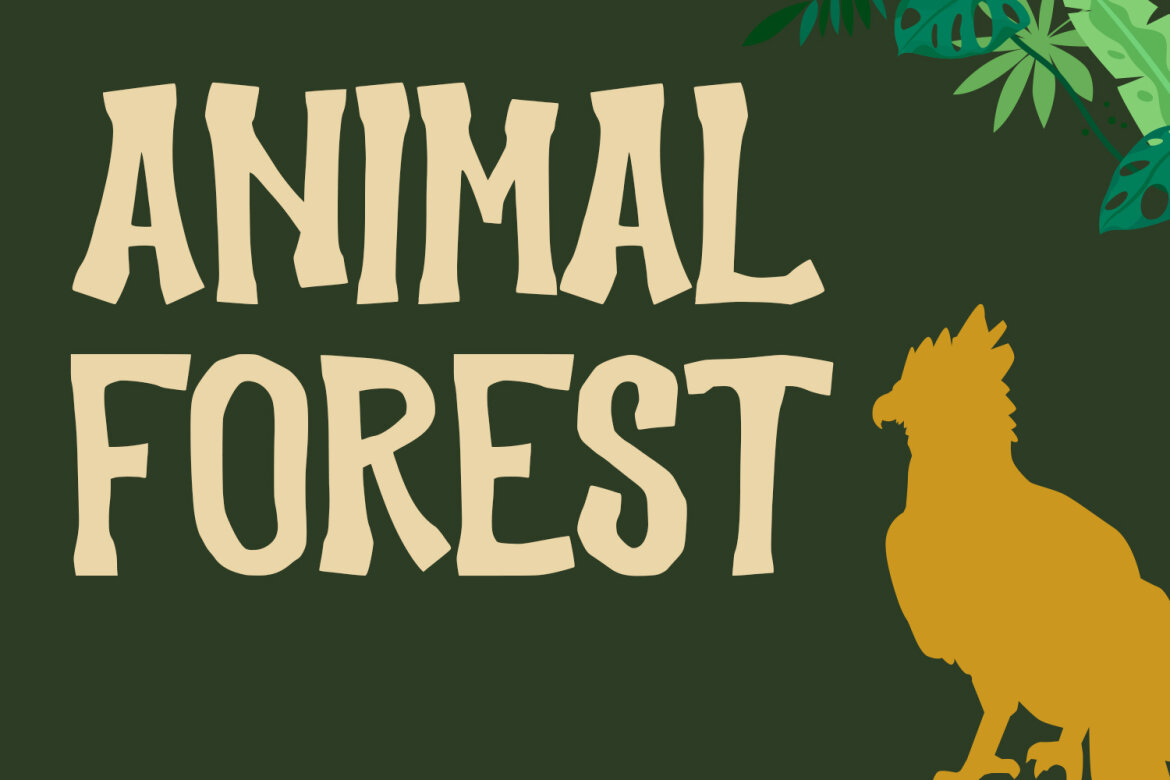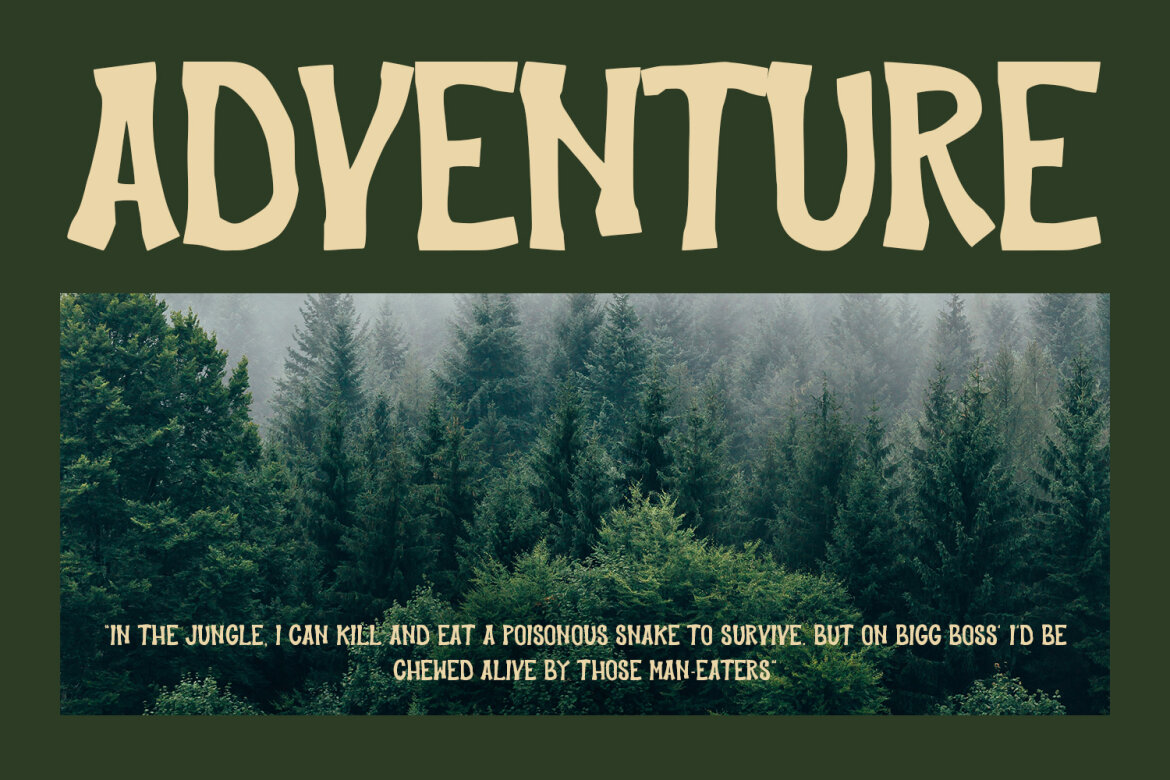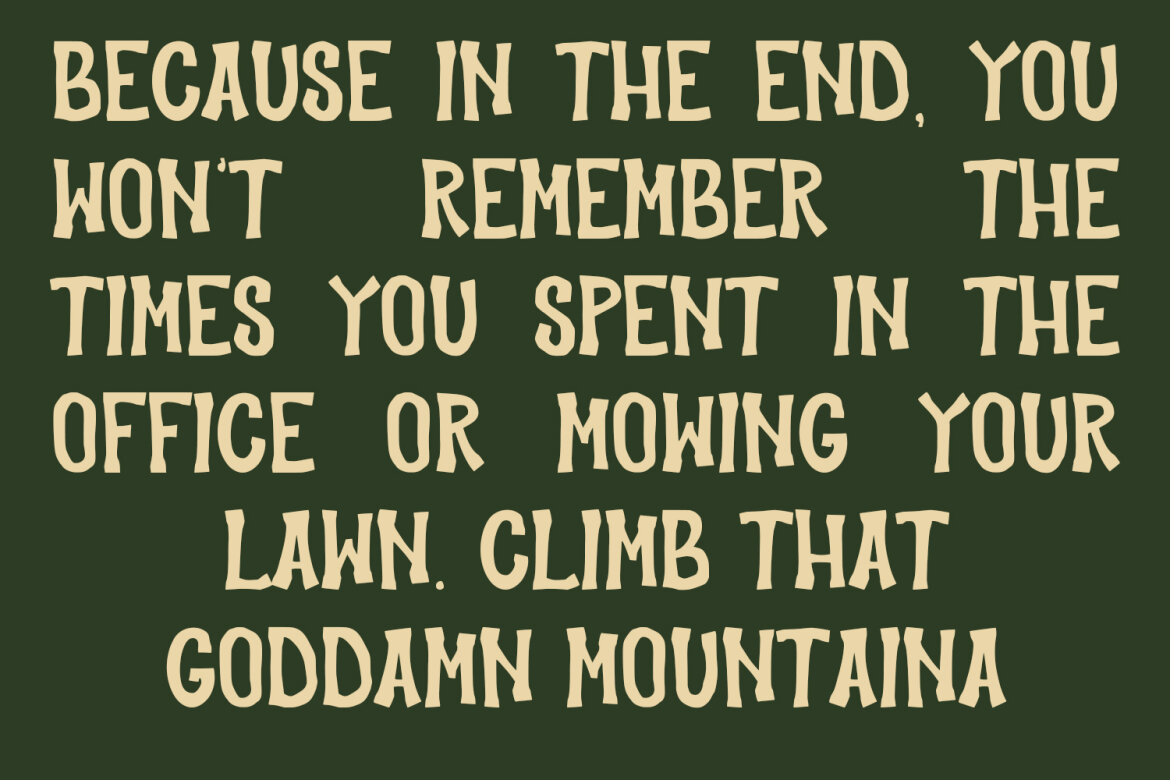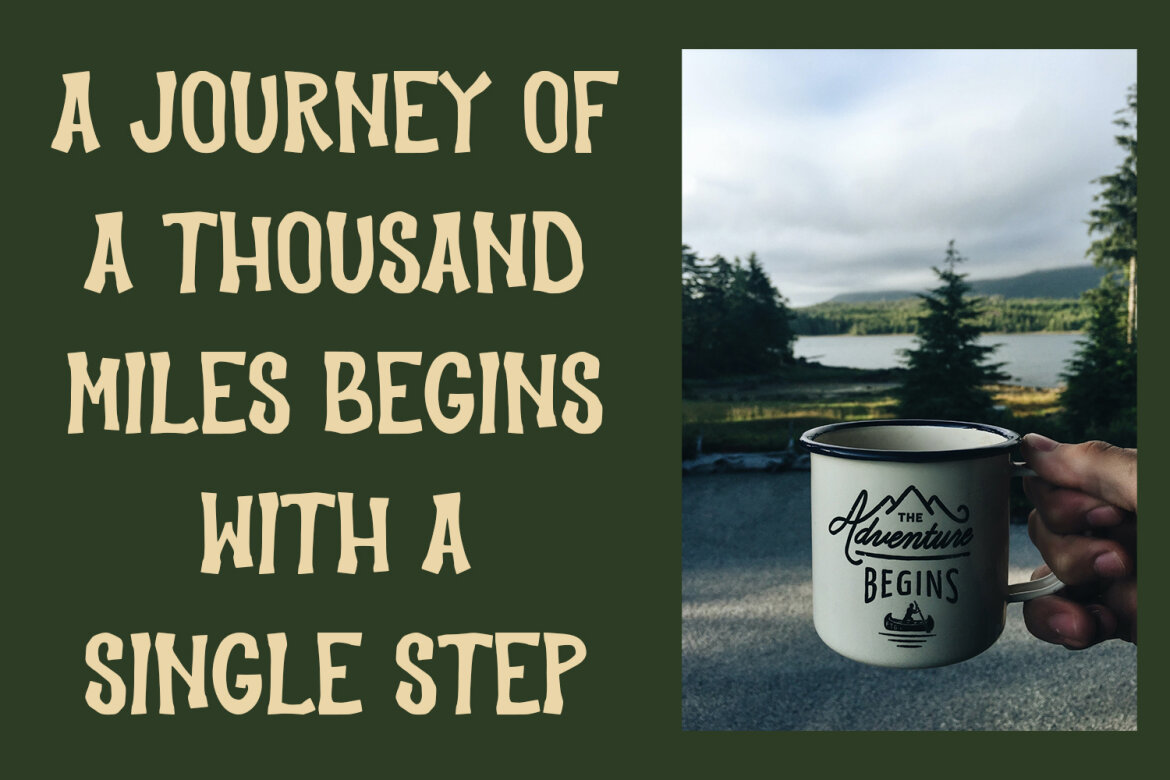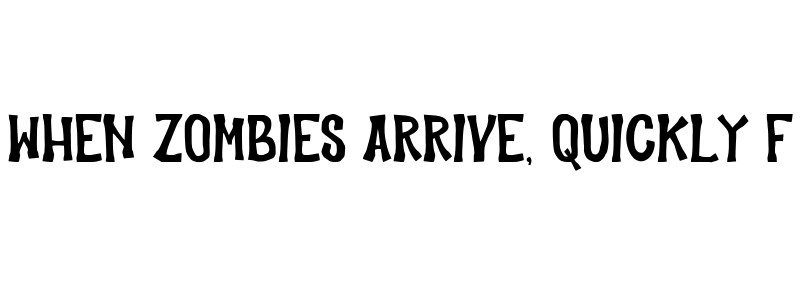
Jungle Hype Display FREE Font
Jungle Hype
Jungle Hype is a modern display typeface font. With bold stroke, fun character with a bit of ligatures and alternates. To give you an extra creative work. Jungle Hype font support multilingual more than 100+ language. This font is good for logo design, Social media, Movie Titles, Books Titles, a short text even a long text letter and good for your secondary text font with sans or serif. Make a stunning work with Jungle Hype font.